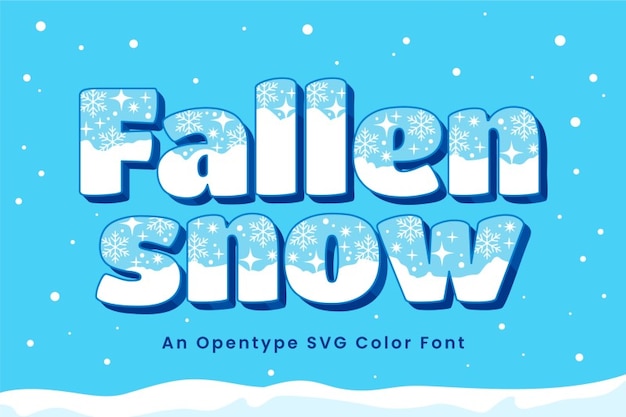
The font that's as bold as a blizzard and as icy as a snowflake! Perfect for all your snowy projects and frosty designs! Whether it's crafting adventurous posters or chilly holiday cards, this font adds that extra cool factor. So, let the snowflakes fall and your creativity soar high with Fallen Snow!